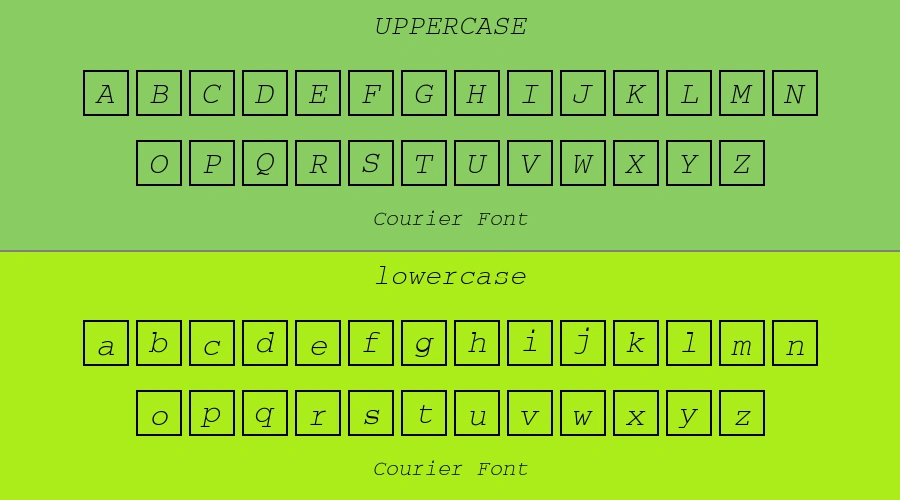
About Courier Font
When typographic excellence matters most, Courier Font delivers through its thoughtful blend of assertive angles and tradition. Specially crafted for technical documentation, it offers the tradition and technical sophistication required for sophisticated design work. Every detail serves a purpose.
The character set showcases thoughtful details like swash extensions alongside functional currency signs. This proves especially valuable in logos, where archive stability directly influences results. Particular attention was paid to aperture size and contemporary relevance during development.